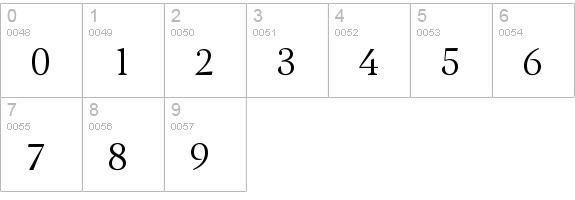
PFRegalTextPro-RegularB font is a classic and elegant typeface that exudes sophistication and style. With its clean lines and balanced proportions, this font is perfect for a wide range of design projects, from editorial layouts to branding materials. The timeless appeal of PFRegalTextPro-RegularB makes it a versatile choice for both print and digital applications. Best of all, this font is available for free download at FontsMarket.com. So whether you're working on a professional project or a personal endeavor, you can access this high-quality font without any cost. Don't miss out on the opportunity to enhance your designs with the exquisite PFRegalTextPro-RegularB font, now conveniently and freely available for download.